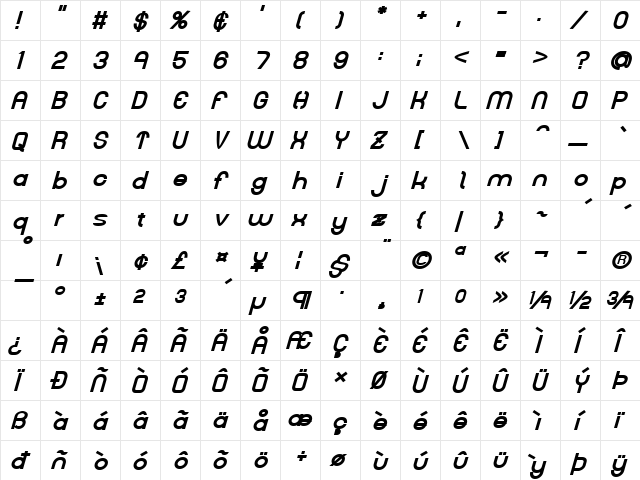
Kelly Bold Italic
Design Context for Kelly Typeface
Kelly is a composed and adaptable typeface that performs quietly and consistently across a wide range of design contexts. Its italic angle brings a sense of urgency and motion to the letterforms. Its bold stroke weight gives it real presence on the page.
Pro Tip: Use Kelly for emphasis, pull quotes, and subheadings where its slanted energy can add rhythm to the layout.